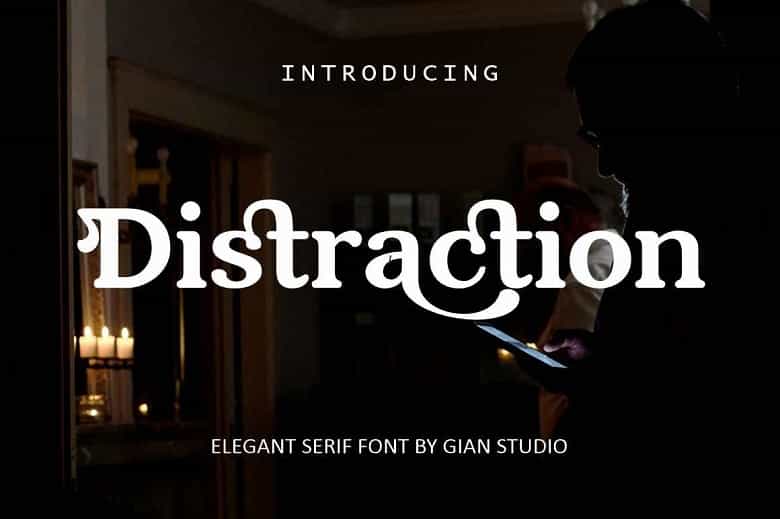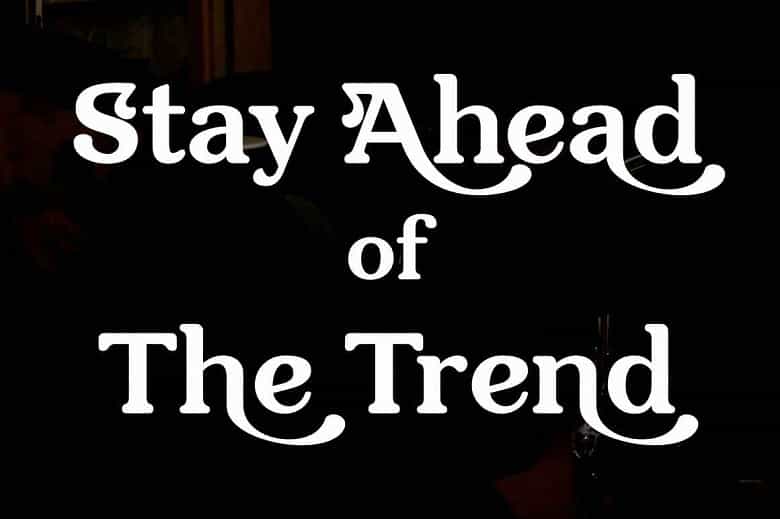
Distraction is an elegant soft serif font that is both classy and up to date in design. This type of font is ideal for all your purposes including branding projects, logos, wedding designs, social media posts, advertisements, packaging, products, labels, photos, watermarks, invitations, stationery, and any project, that requires a high level of legibility.